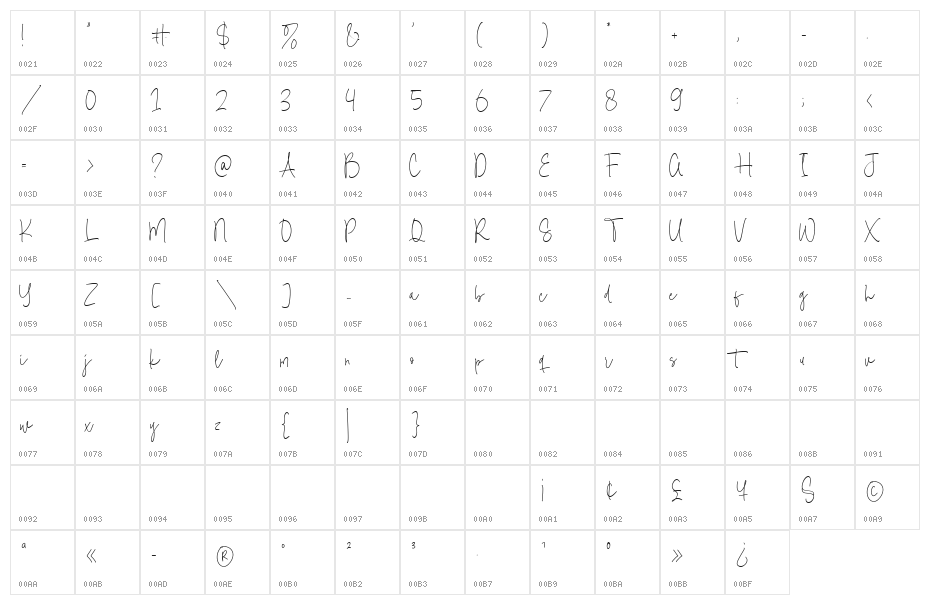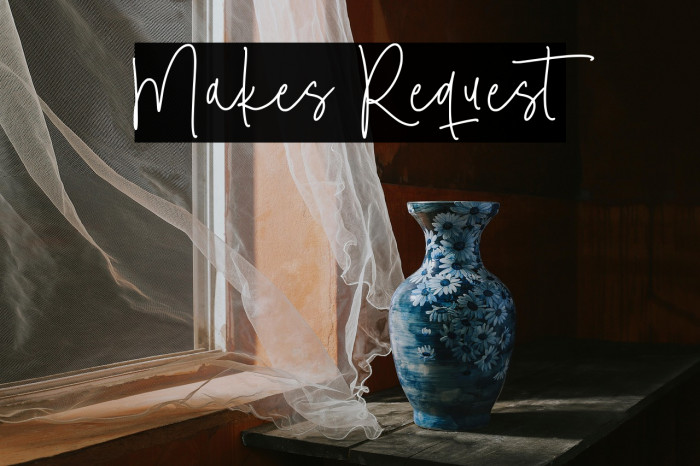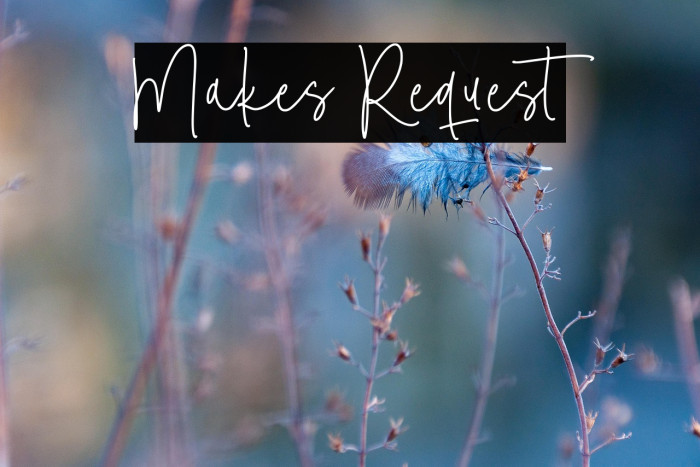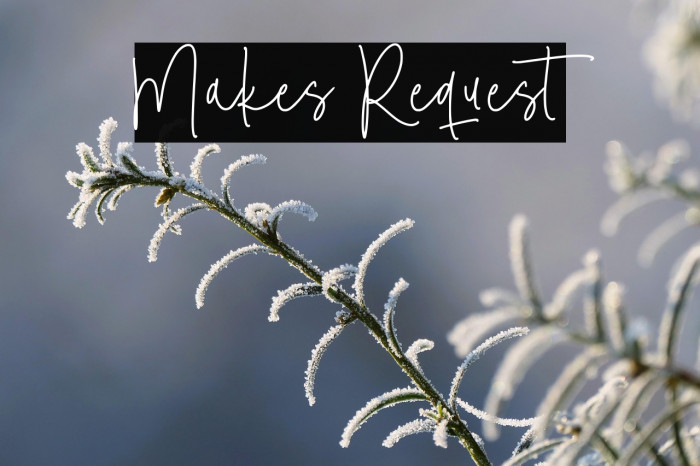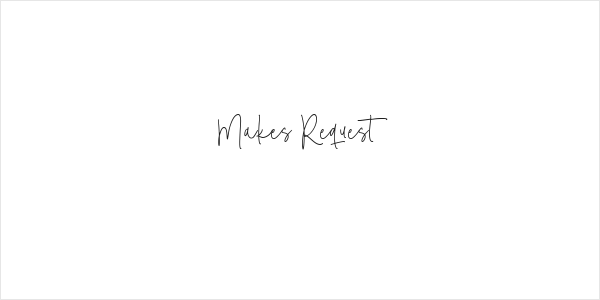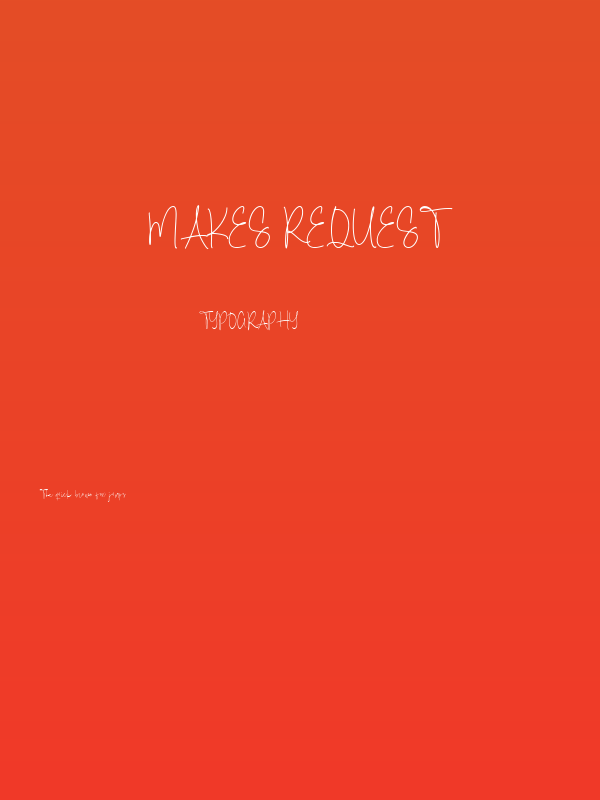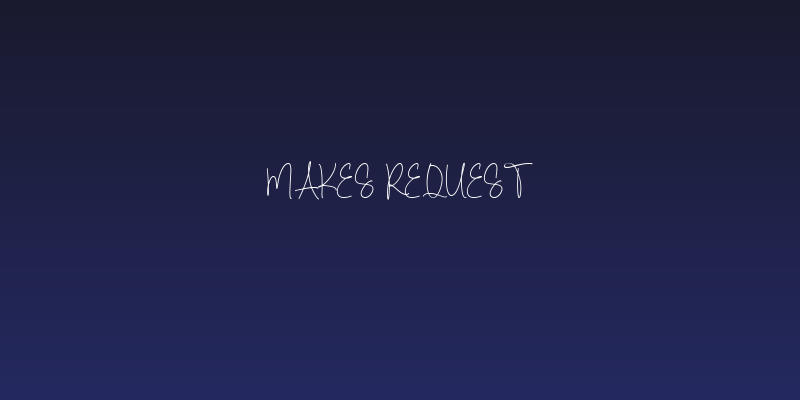
Makes Request Font
Makes Request Description
This font features a playful and casual handwritten style, characterized by its loose, flowing lines and slightly irregular letterforms. The uppercase letters are tall and narrow, with a whimsical touch that adds personality to each character. The lowercase letters maintain a consistent style, offering a smooth and connected appearance that mimics natural handwriting. The numerals are distinct and easy to read, while the special characters blend seamlessly with the overall aesthetic. This font exudes a friendly and approachable vibe, making it suitable for projects that require a personal touch.
| Use Case | Logos, Headlines, Informal text |
| Proposed Projects | Ideal for greeting cards, personal invitations, casual branding, and social media graphics. |